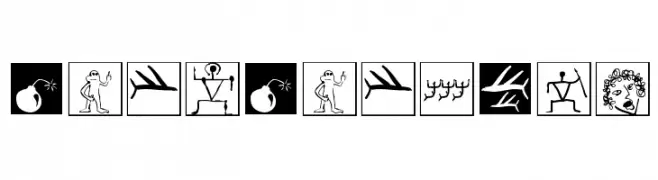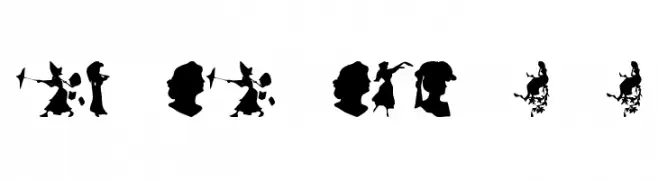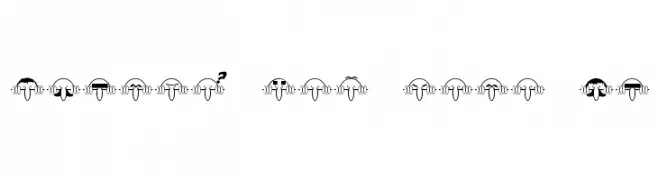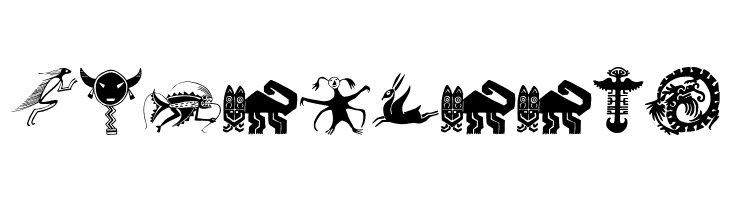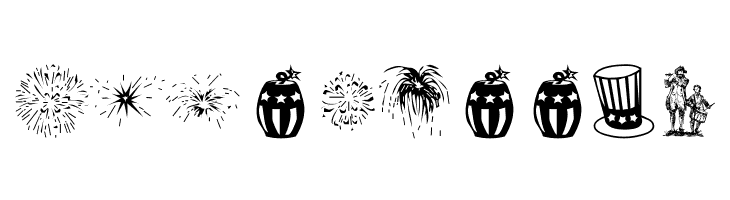
A whimsical font featuring variations of the 'Kilroy Was Here' doodle for each character.
( Fonts by Manfred Klein - manfred-klein.ina-mar.com )
A decorative font with whimsical illustrations replacing traditional characters.
( Fonts by www.kiwi-media.com )
A decorative collection of pictograms and symbols with diverse imagery.
Patriotic-themed dingbat font with detailed illustrations.
( Fonts by Manfred Klein - manfred-klein.ina-mar.com )
Whimsical dingbat font with cartoonish characters and abstract icons.